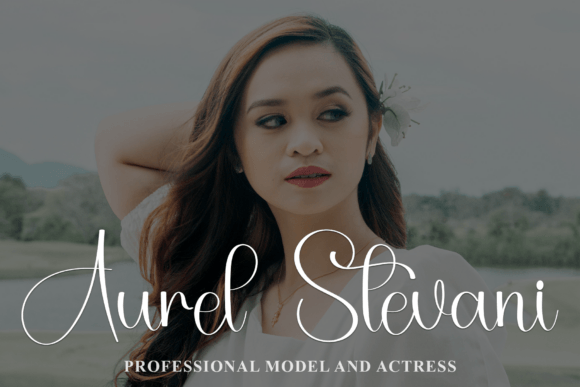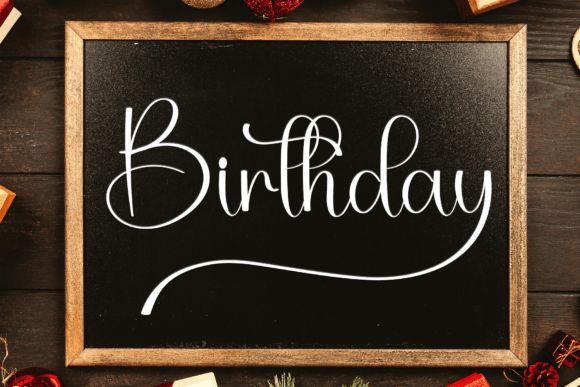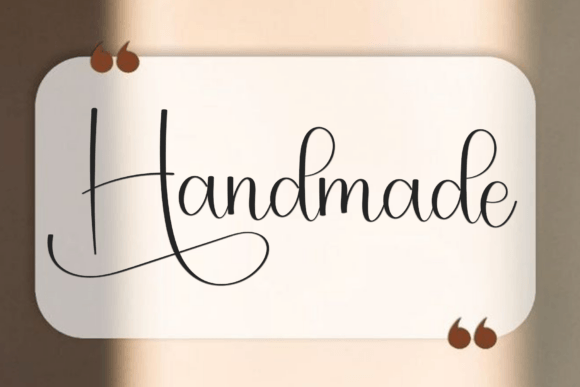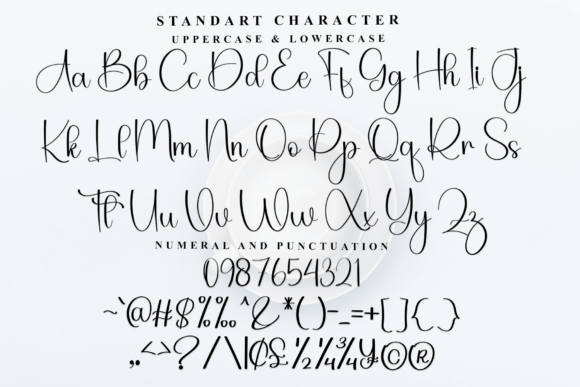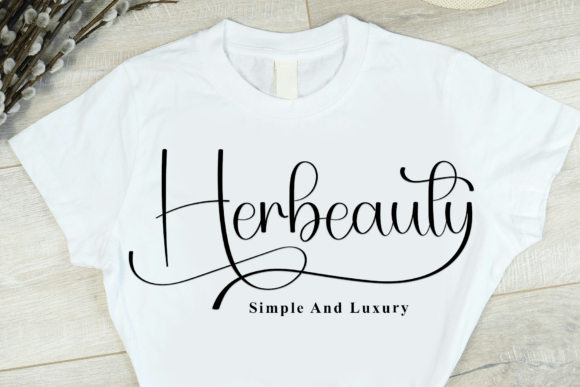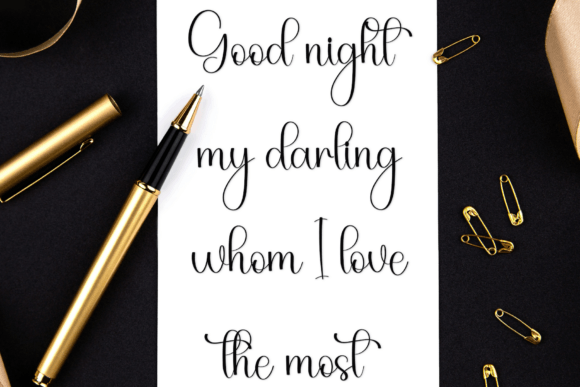
The Angelina Handwriting Font: A Warm and Playful Addition to Your Design Toolkit
I still remember the design project that led me to discover the Angelina Handwriting font. I was working on a custom invitation for a friend’s wedding, and I was struggling to find the perfect font that exuded warmth and friendliness. The client wanted something that felt approachable and personal, but I was coming up blank. That’s when I stumbled upon Angelina Handwriting, and it instantly clicked. The round, playful strokes and charming, hand-drawn aesthetic made it the perfect fit for the project.
• ✨ The casual and creative vibe of Angelina Handwriting makes it perfect for personal projects, invitations, and social media graphics.
• ✅ The font’s charming, hand-drawn aesthetic adds a fun and unique touch to any design.
While Angelina Handwriting is an amazing font, there are a few things to keep in mind. ⚠️ Some users might find that the font can be a bit inconsistent in terms of stroke width, which might not be ideal for very formal or professional designs. 🤔 Additionally, the font might not be the best choice for very long blocks of text, as it can be a bit harder to read.
The Story Behind Angelina Handwriting
While the true story behind Angelina Handwriting remains a mystery, it’s easy to imagine that it was created by a designer who wanted to capture the warmth and playfulness of handwritten text. Perhaps the designer was inspired by childhood letters and postcards, or maybe they simply wanted to create a font that felt approachable and friendly. Whatever the inspiration, Angelina Handwriting is a true gem in the world of typography.
Q: Is Angelina Handwriting suitable for body text?
A: While Angelina Handwriting is a beautiful font, it might not be the best choice for very long blocks of text. It’s better suited for headings, titles, and short paragraphs.